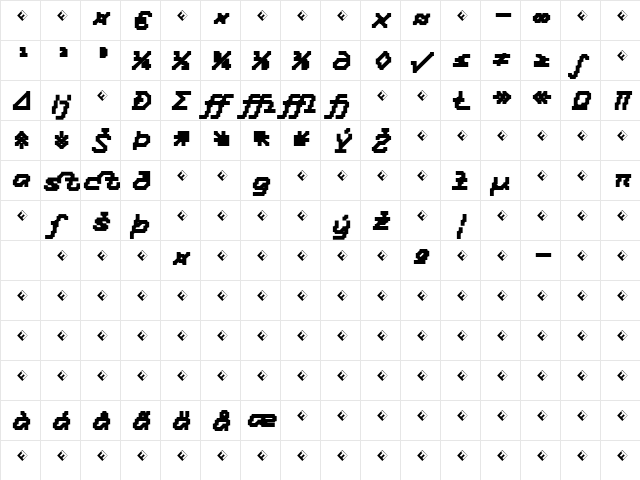
Tronic-BoldItalicExpert Regular Font Preview
| Foundry | Hyun Cho, Sung Min Choi; published by FontShop International for the FontFont Library |
| Designer | Hyun Cho, Sung Min Choi |
Design Context for Tronic-BoldItalicExpert Typeface
Tronic-BoldItalicExpert takes a measured approach to typography — its balanced proportions and neutral character make it a reliable workhorse for both digital and print work. Its italic angle brings a sense of urgency and motion to the letterforms. The heavy weight commands attention and anchors typographic hierarchies.
Pro Tip: Try Tronic-BoldItalicExpert for annotation and caption copy alongside an upright companion — the contrast in angle creates a dynamic but ordered typographic system.